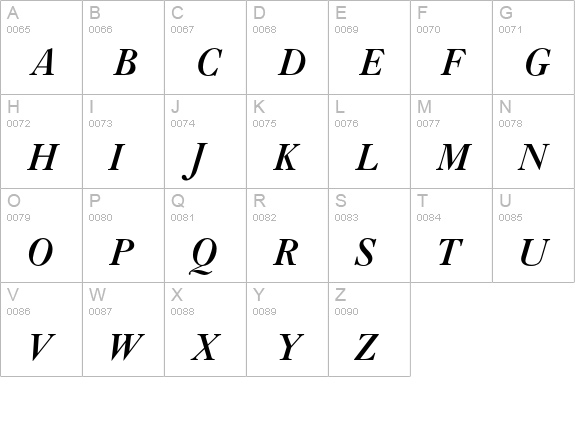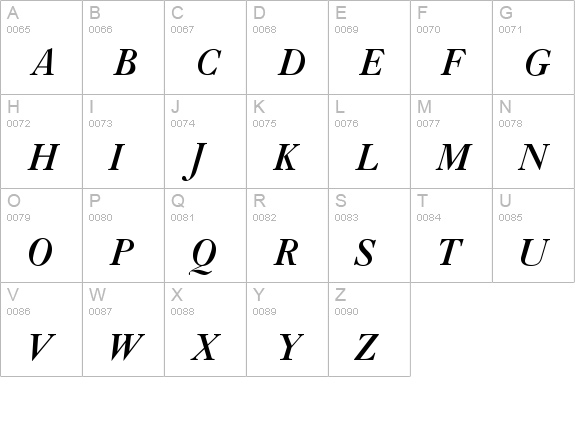
CaslonBoldL-Italic is a distinctive, italic variant in the CaslonBoldL typeface family \xE2\x80\x94 well suited to design and typography projects.
CaslonBoldL-Italic is a stunning and elegant font that exudes sophistication and charm. The italicized version of CaslonBoldL adds a touch of flair and style to any design project. With its bold weight and slanted appearance, this font is perfect for creating eye-catching headlines, titles, and emphasis in both print and digital media. The classic yet contemporary look of CaslonBoldL-Italic makes it versatile for a wide range of design applications. And the best part? CaslonBoldL-Italic is available for free download at FontsMarket.com! This means you can easily access this beautiful font and incorporate it into your projects without any cost. Whether you're a designer looking to elevate your creations or a business owner wanting to add a touch of sophistication to your branding, CaslonBoldL-Italic is the perfect choice. Download it today and let your creativity shine with this exquisite typeface.